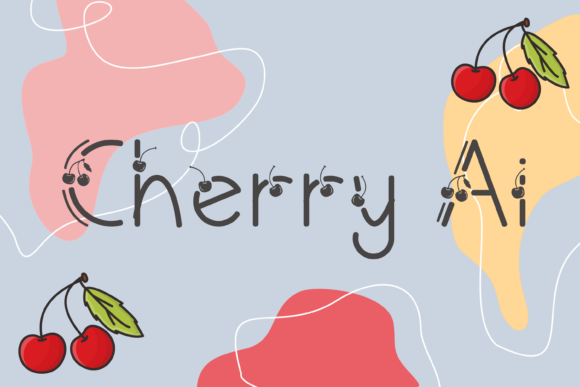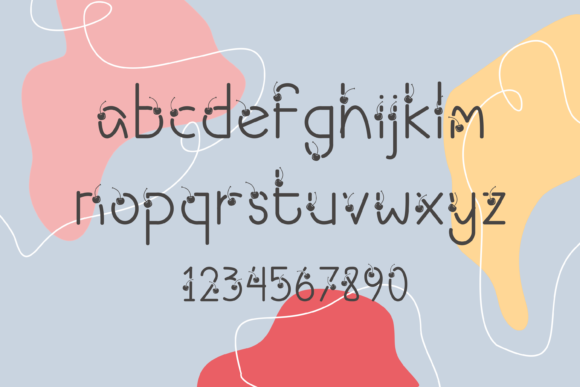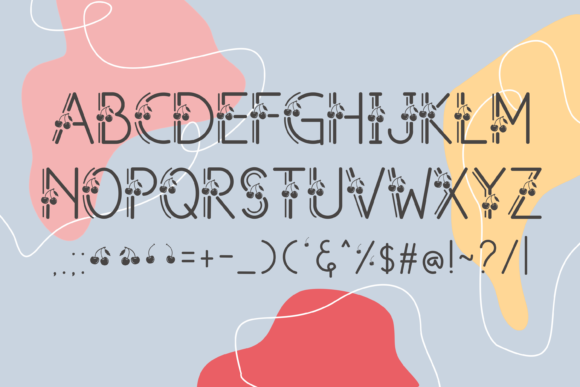
Cherry Ai
About Cherry Ai Font
Cherry Ai is a sweet decorative font, featuring lovely cherry ornaments. Fall in love with its authentic feel and use it to create gorgeous designs, beautiful stationary art, eye-catching social media posts, and cute greeting cards.